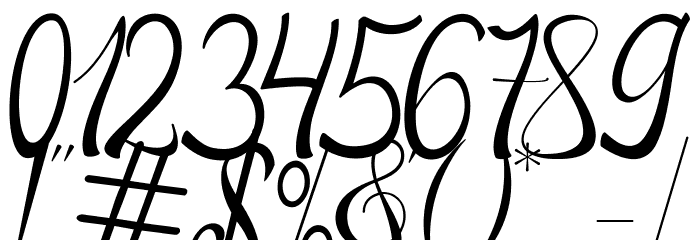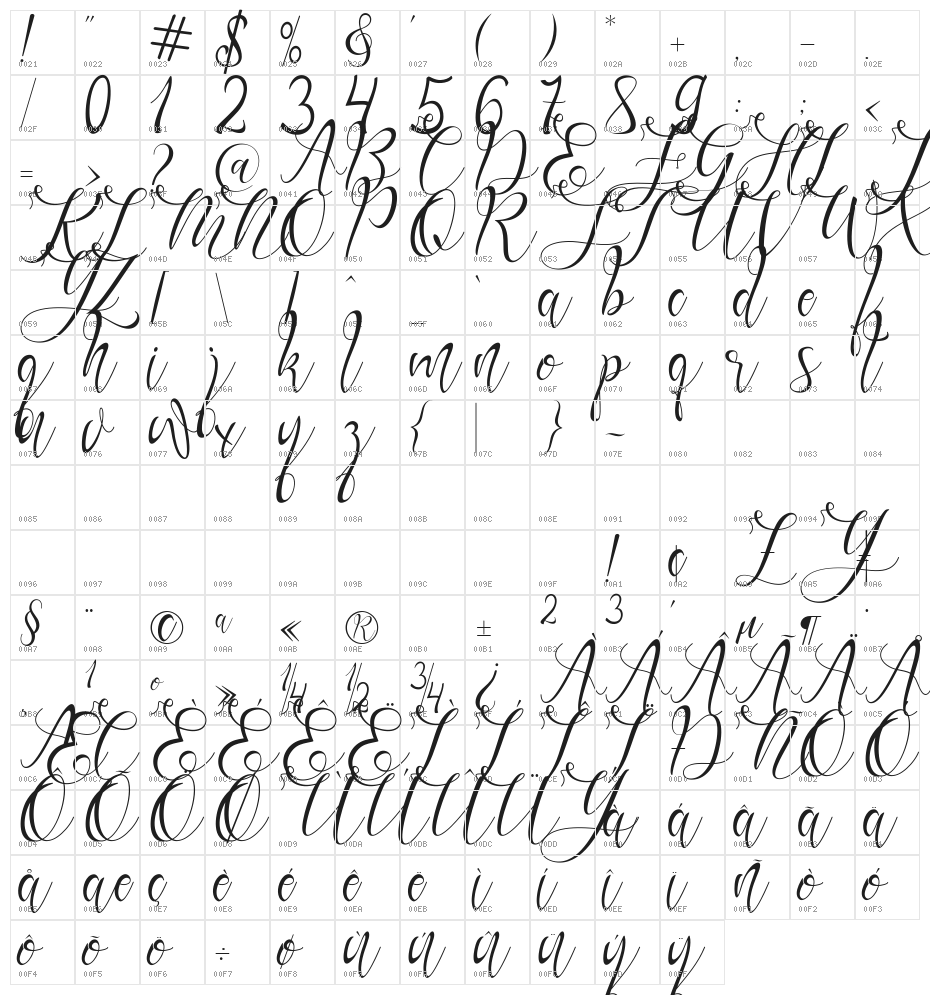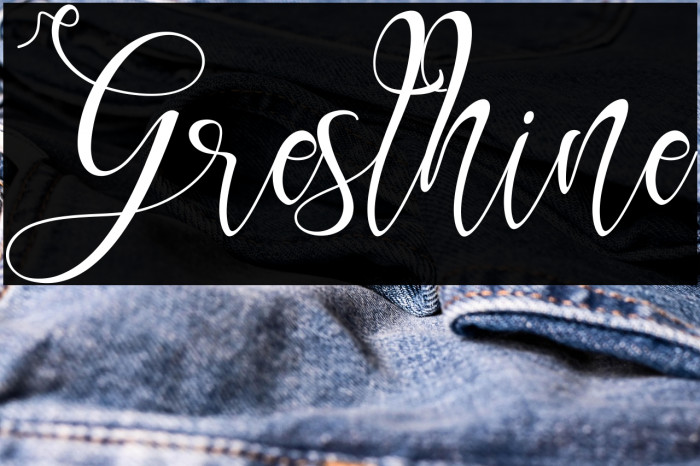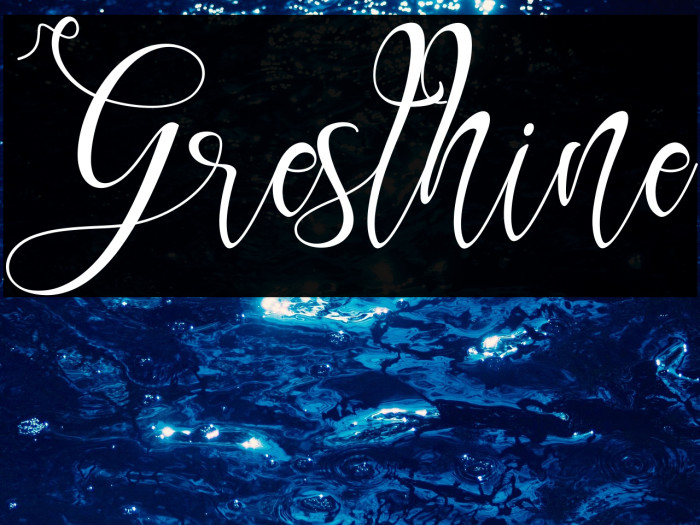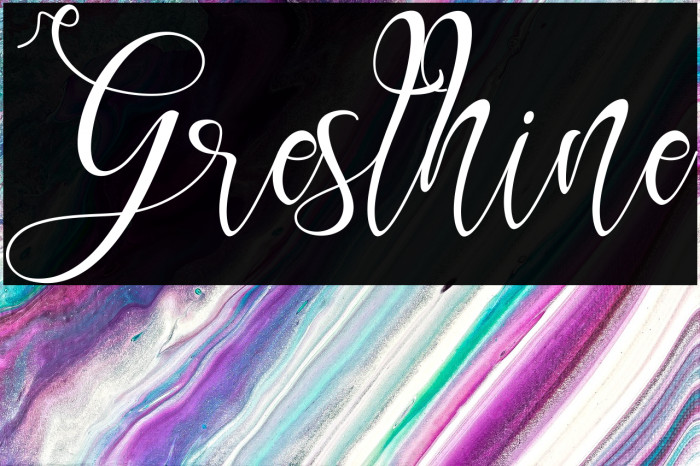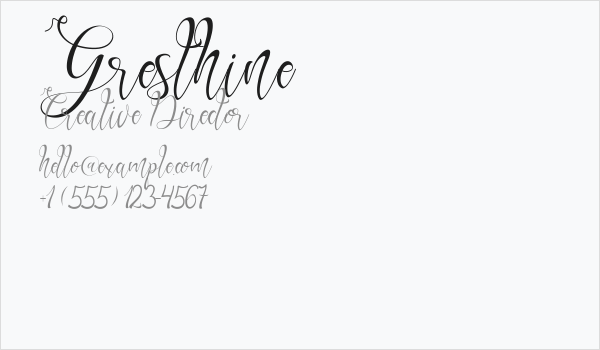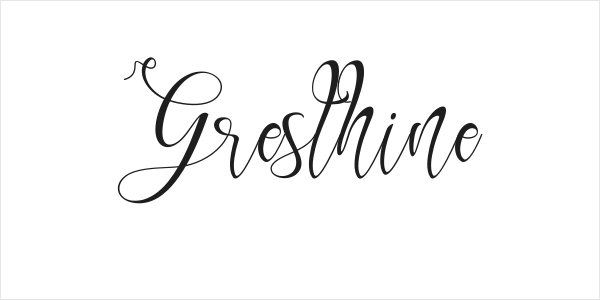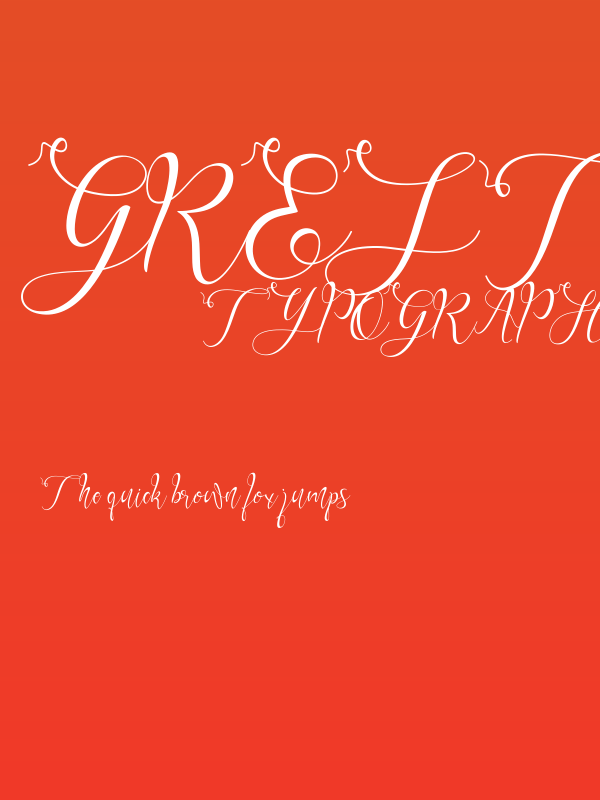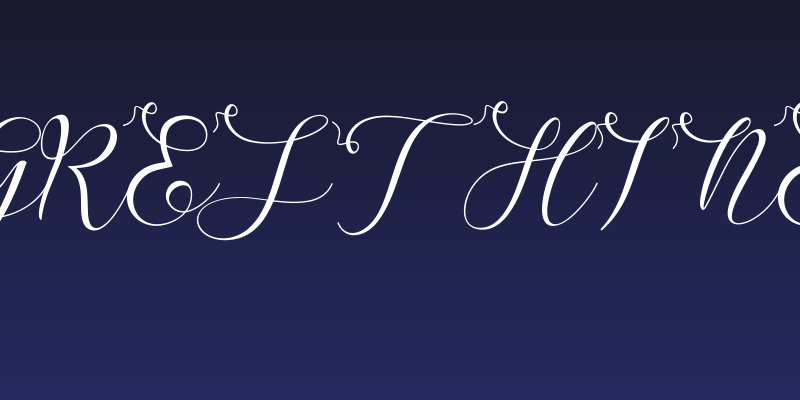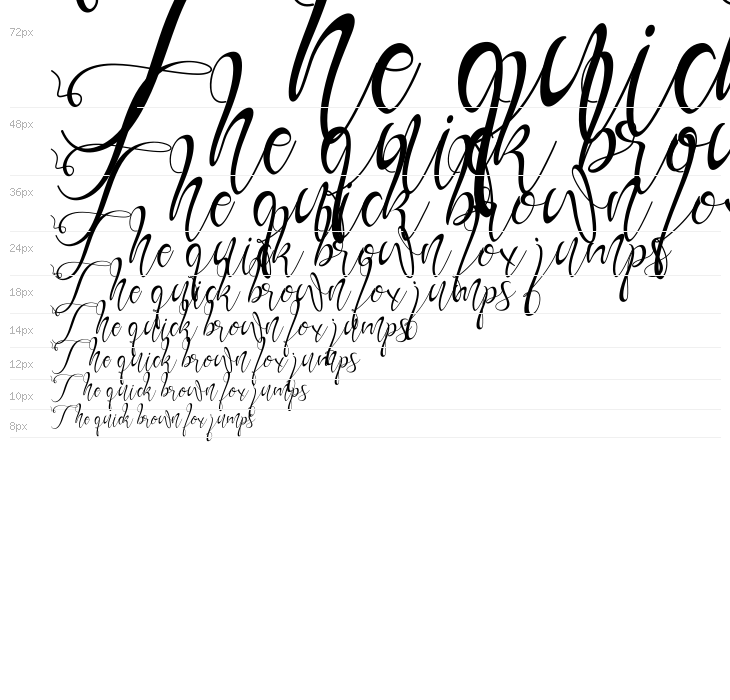
Gresthine Font
Gresthine Description
This elegant script font features a flowing, cursive style with intricate swashes and flourishes. The uppercase letters are adorned with decorative loops, giving them a sophisticated and ornate appearance. The lowercase letters maintain a consistent fluidity, enhancing the font's graceful aesthetic. The numerals are stylish yet readable, complementing the overall design. Special characters are crafted with the same attention to detail, making them suitable for decorative purposes. This font exudes a sense of elegance and refinement, perfect for projects that require a touch of class.
| Proposed Projects | Ideal for wedding invitations, elegant branding, luxury packaging, and decorative signage. |